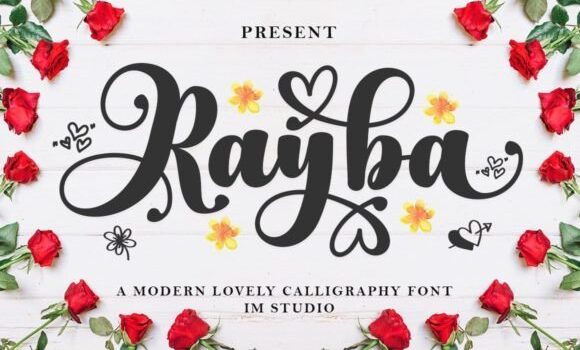
rayba
Rayba Font – Free Download Introduction to Rayba Font Rayba is a cute, versatile, and flexible handwritten font. 📸 Preview Gallery 6 images 📌 Product Name Rayba Font 👤 Author IM Studio 📂 Category Explore ⬇️ Download Rayba Font FREE